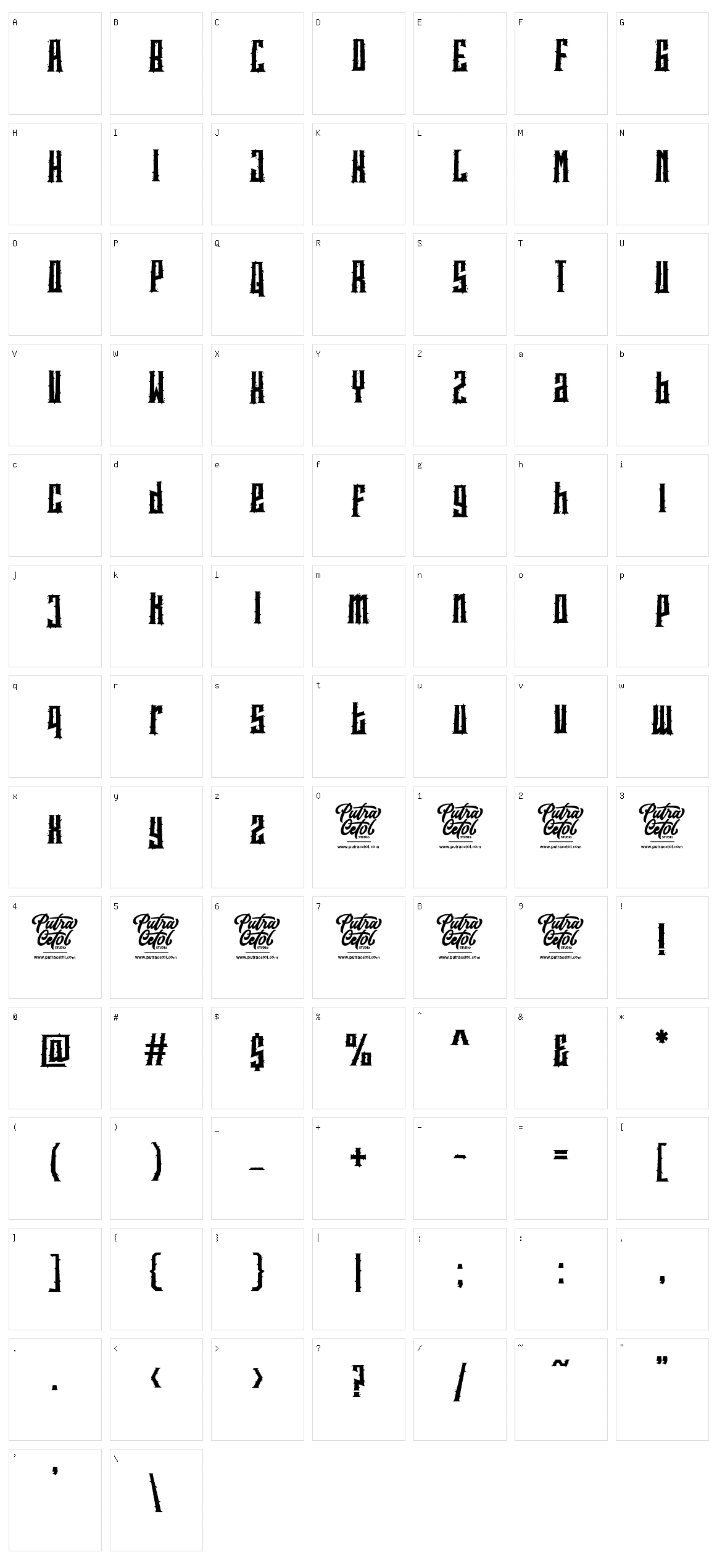
The free font Spookies Identity is carefully designed by PutraCetol Studio, showcasing a thoughtful balance of creativity and usability and falls under the Halloween font style. When you download the ZIP file, it contains only 1387.08 KB of font files, making it lightweight and quick to download. Please review the license details below to understand permitted usage and distribution rights. If license information is not available, we recommend using this font for personal projects only or contacting the author directly for commercial usage permissions.